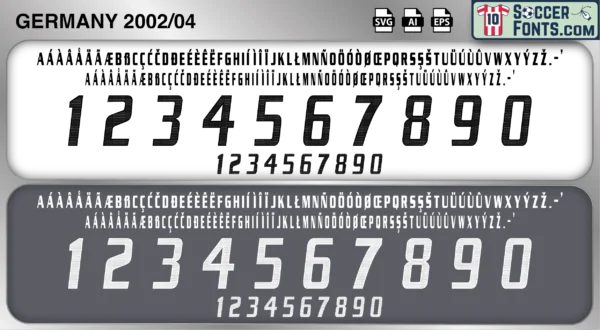
Germany 2002-04 Font
The Germany 2002-04 font is an editable soccer jersey lettering design in vector format inspired by the Germany kit style used during the 2002-04 football seasons. This football font artwork is prepared for football shirt recreations, custom jersey projects, football kit mockups and sports graphic design workflows.
The 2002-04 period followed Germany’s run to the 2002 FIFA World Cup Final in South Korea and Japan, where the national team exceeded expectations and re-established itself among football’s elite. Led by Oliver Kahn, Michael Ballack, Miroslav Klose, Torsten Frings, Bernd Schneider and Carsten Ramelow, Germany produced a disciplined and determined tournament campaign before facing Brazil in the final. The years that followed carried the weight of that World Cup achievement while the team prepared for UEFA EURO 2004 and continued its broader rebuilding process.
The Germany 2002-04 font became associated with the aftermath of a World Cup final campaign and a period of transition before the major structural changes that would reshape German football later in the decade. Germany shirts from this era remain popular among football shirt collectors because of their connection with Oliver Kahn’s iconic performances, Ballack’s emergence as a leader and one of the most memorable World Cup cycles of the early 2000s. The Germany 2002-04 font reflects a national team balancing tradition, expectation and renewal during an important chapter in modern German football history.